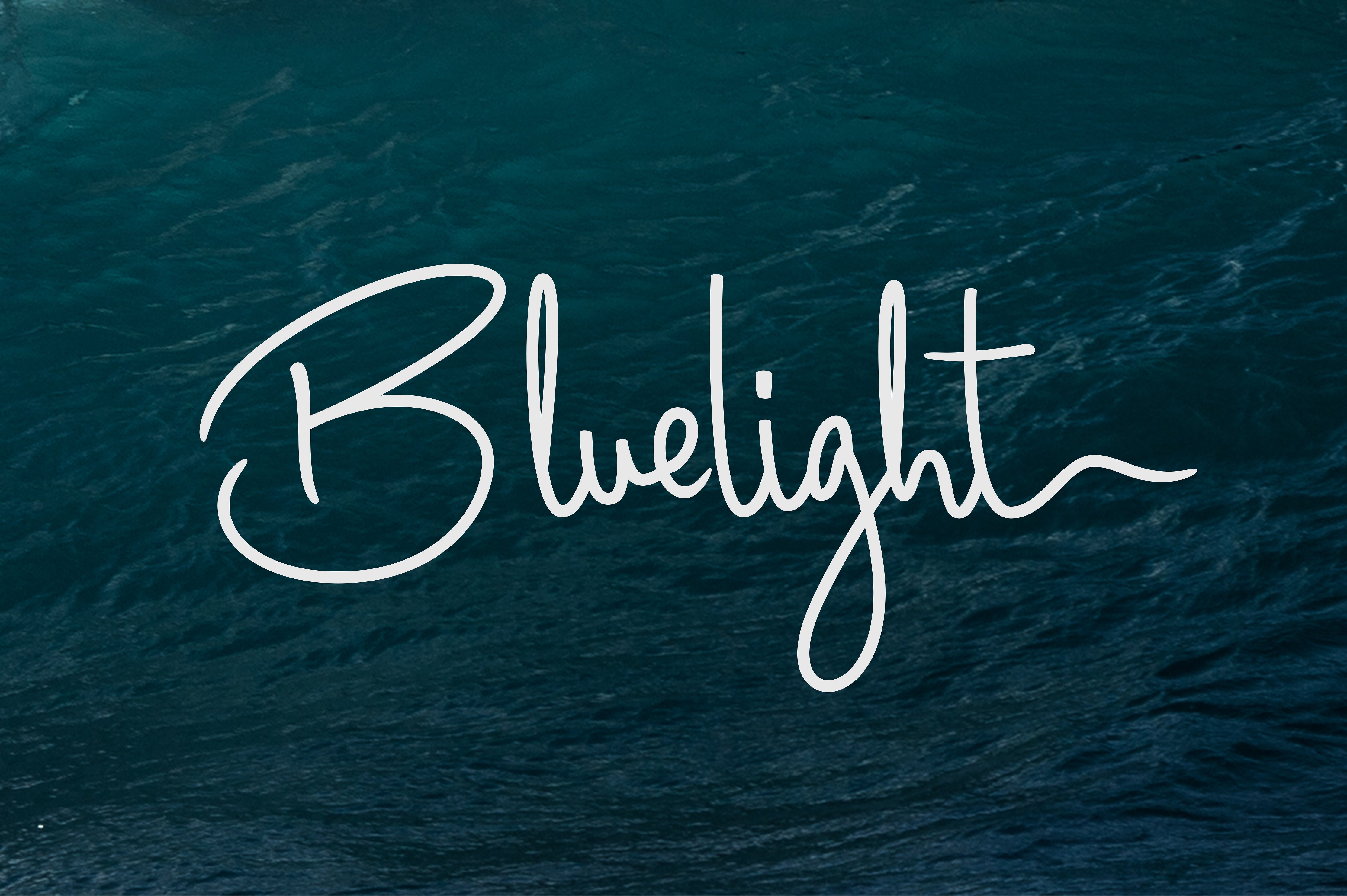
Bluelight Script
Bluelight Script Font
Introducing Bluelight Script – a new fresh & modern script with a sweet calligraphy-style, decorative characters and a dancing baseline! So beautiful on invitation like greeting cards, branding materials, business cards, quotes, posters, and more!